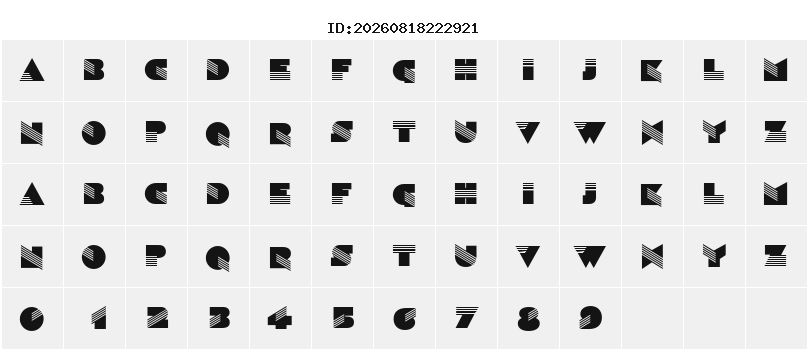
Sinaloa CG Preview
• Font Name: Sinaloa CG
• Full Font Name: Sinaloa CG
About Sinaloa CG.ttf
Sinaloa CG.ttf is a modern, elegant sans-serif font designed for ultimate readability and visual harmony. Perfect for branding, headlines, web design, and print materials.